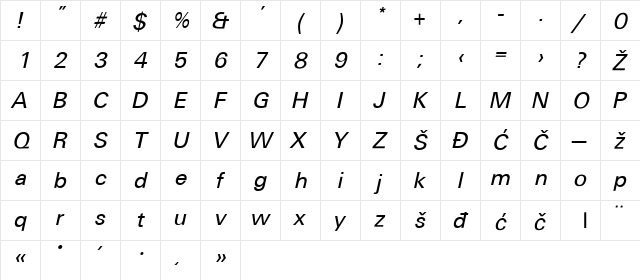
Universans550_PP Regular Font Preview
Universans550_PP Regular
Universans550_PP Regular Font Details
Design Context for Universans550_PP Typeface
Universans550_PP takes a measured approach to typography — its balanced proportions and neutral character make it a reliable workhorse for both digital and print work.